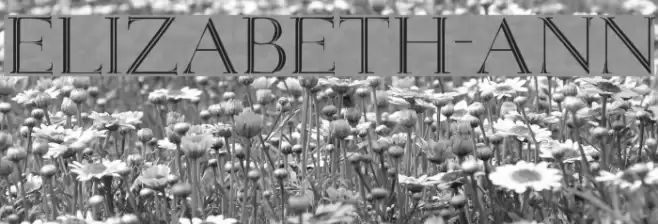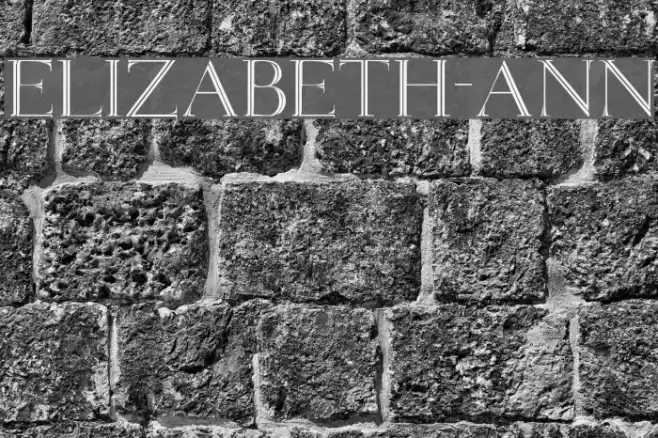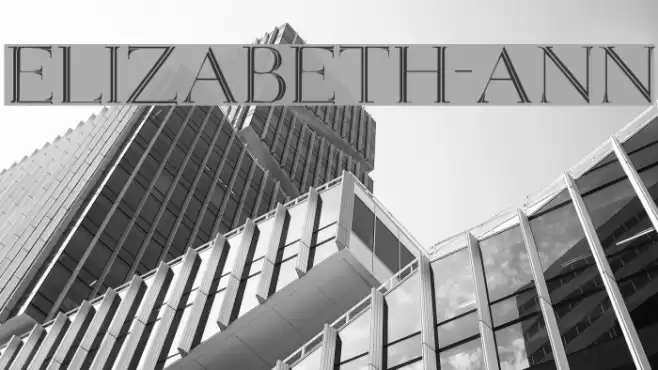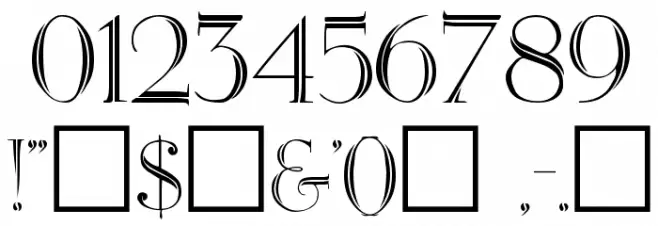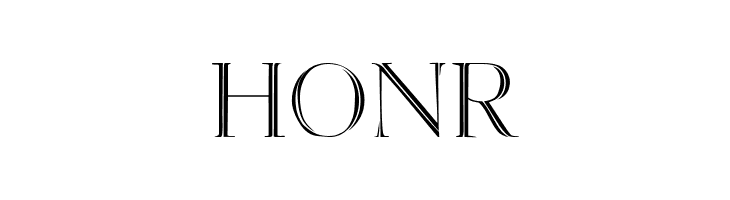
Elizabeth-ANN Font
Elizabeth-ANN Description
This font features a sophisticated and elegant design with high contrast between thick and thin strokes. The characters are adorned with subtle serifs, adding a touch of classic refinement. The uppercase letters are particularly striking, with a tall and narrow appearance that conveys a sense of grandeur. The numerals and special characters maintain the same level of elegance, making them suitable for a variety of formal applications. The overall design is both timeless and versatile, suitable for projects that require a touch of sophistication.
An elegant serif font with high contrast and classic refinement from Uncategorized fonts.
- Proposed Projects: Ideal for wedding invitations, luxury branding, editorial design, and high-end product packaging.
- Overall Style: Classic
- Use Case: Headlines, Logos, Invitations